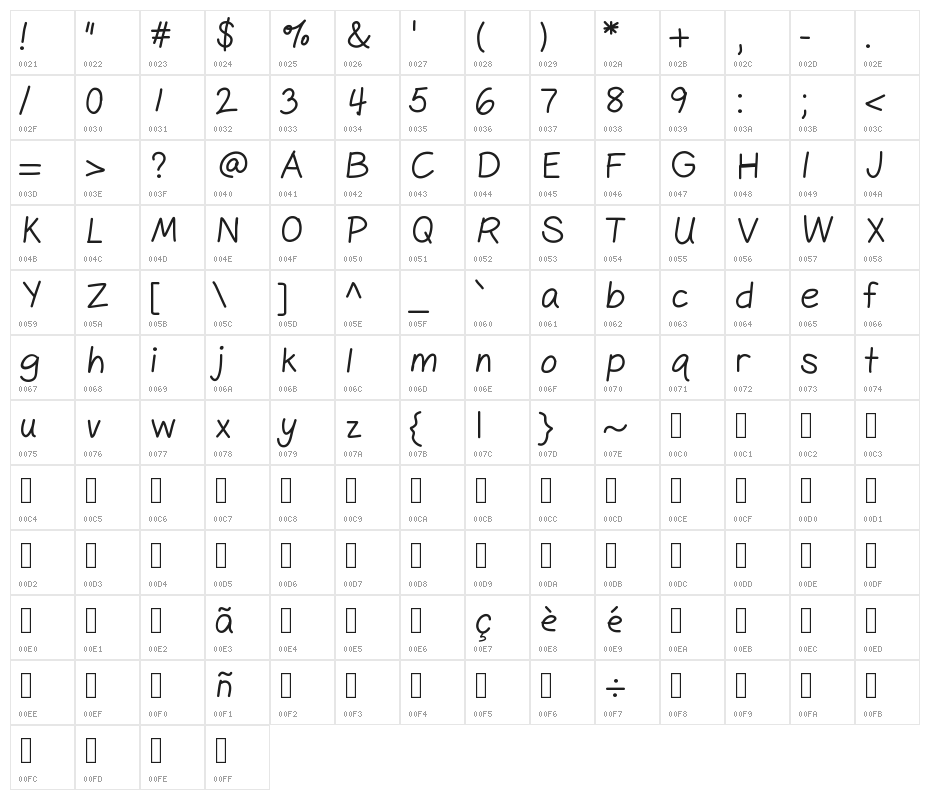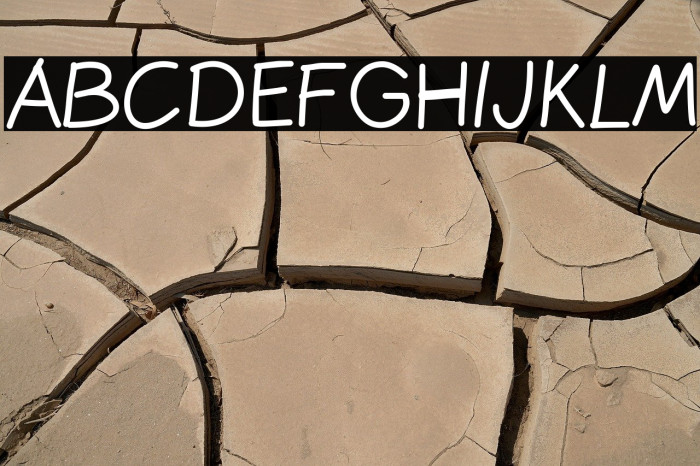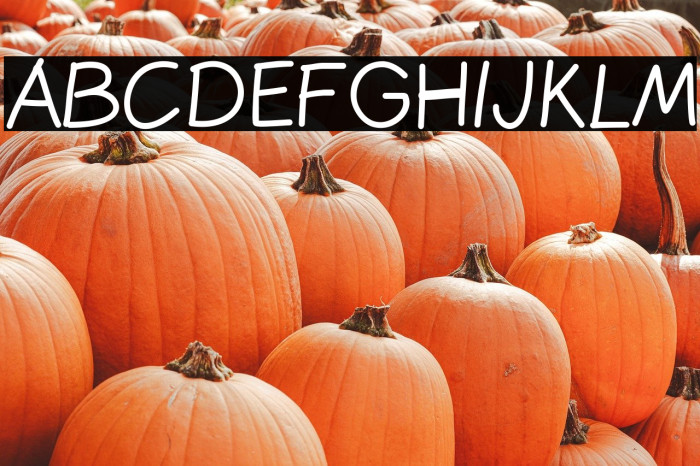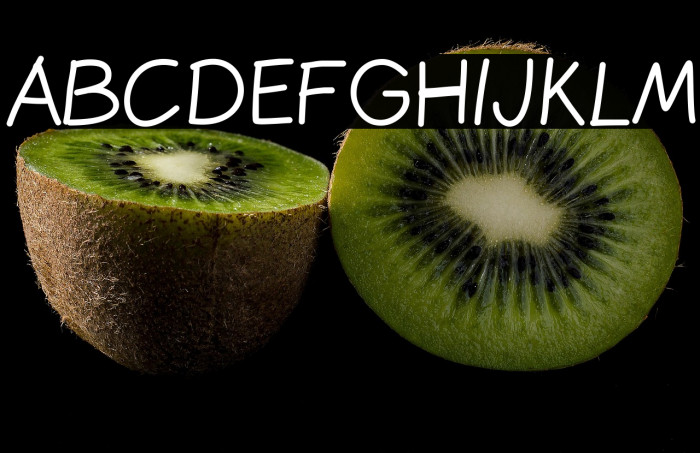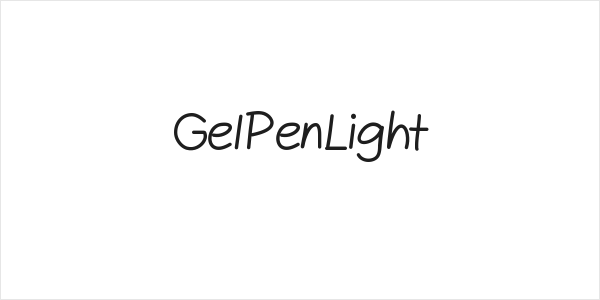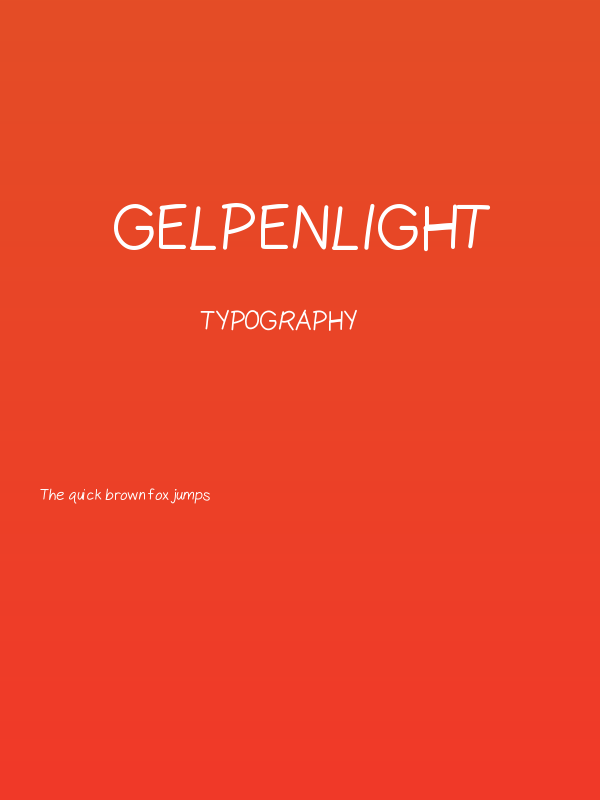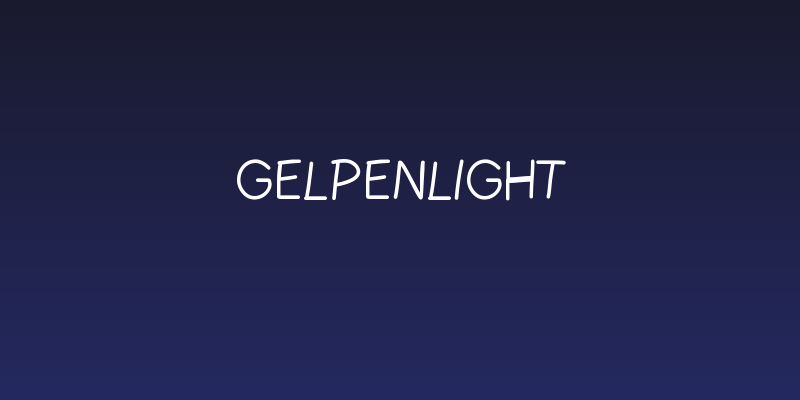
GelPenLight Font
GelPenLight Description
This font features a casual, handwritten style that mimics the smooth flow of gel pen writing. The characters are rounded and slightly slanted, giving a relaxed and approachable feel. The uppercase and lowercase letters maintain a consistent style, with a playful and informal touch. Numbers and special characters are designed to match the overall aesthetic, ensuring a cohesive look across all text elements. The strokes are uniform in thickness, contributing to a clean and legible appearance.
| Use Case | Headlines, Informal text, Personal projects |
| Proposed Projects | Ideal for personal notes, invitations, greeting cards, and informal branding projects. |